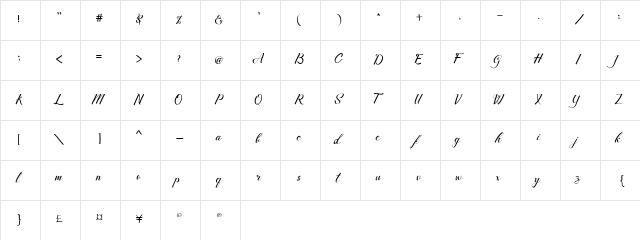
Merthy Merthy
Design Context for Merthy Typeface
Merthy is a composed and adaptable typeface that performs quietly and consistently across a wide range of design contexts.